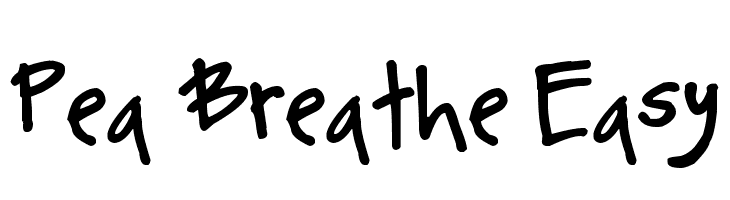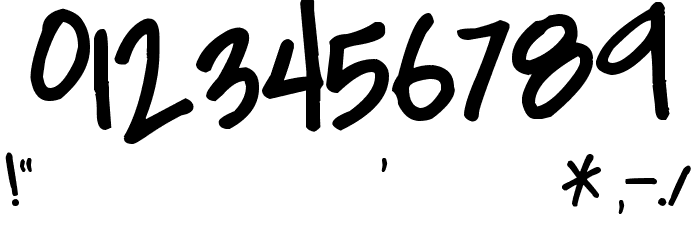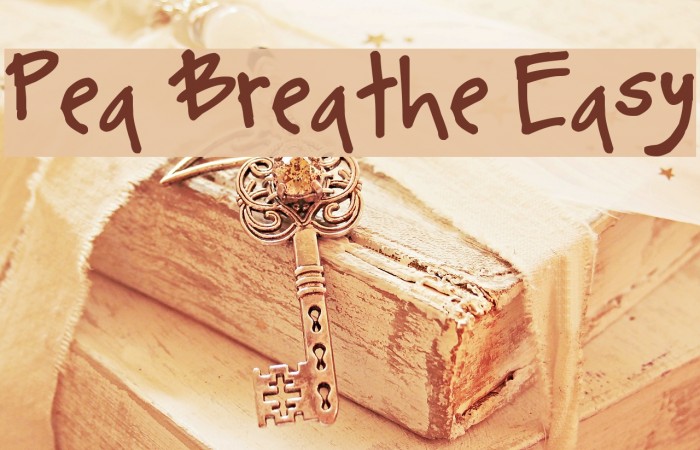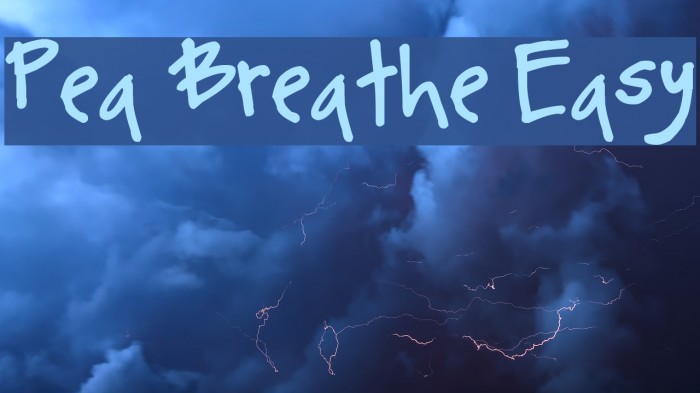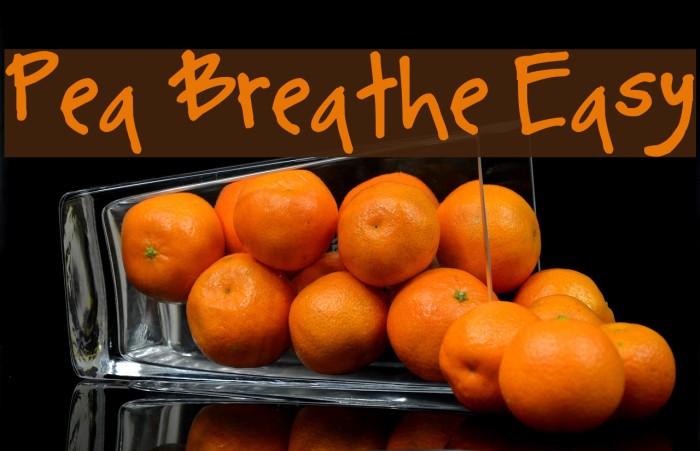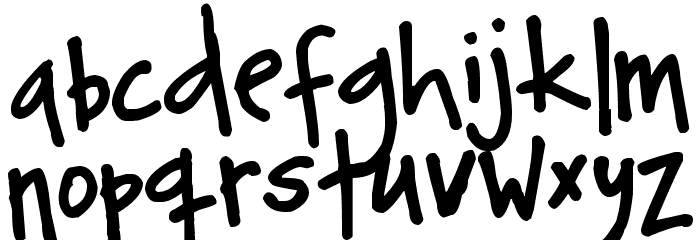
Pea Breathe Easy Font
Pea Breathe Easy Description
This playful and casual handwritten font exudes a relaxed and informal vibe, perfect for projects that require a personal touch. The letters are slightly slanted, with a natural flow that mimics real handwriting. The strokes are consistent in thickness, providing a uniform appearance while maintaining a lively and spontaneous feel. The characters are well-spaced, ensuring readability, and the overall design is approachable and friendly. This font is ideal for creative projects that aim to convey warmth and personality.
| Overall Style | Casual |
| Use Case | Headlines, Informal text, Creative projects |
| Proposed Projects | Greeting cards, personal blogs, children's books, casual invitations, and social media graphics. |